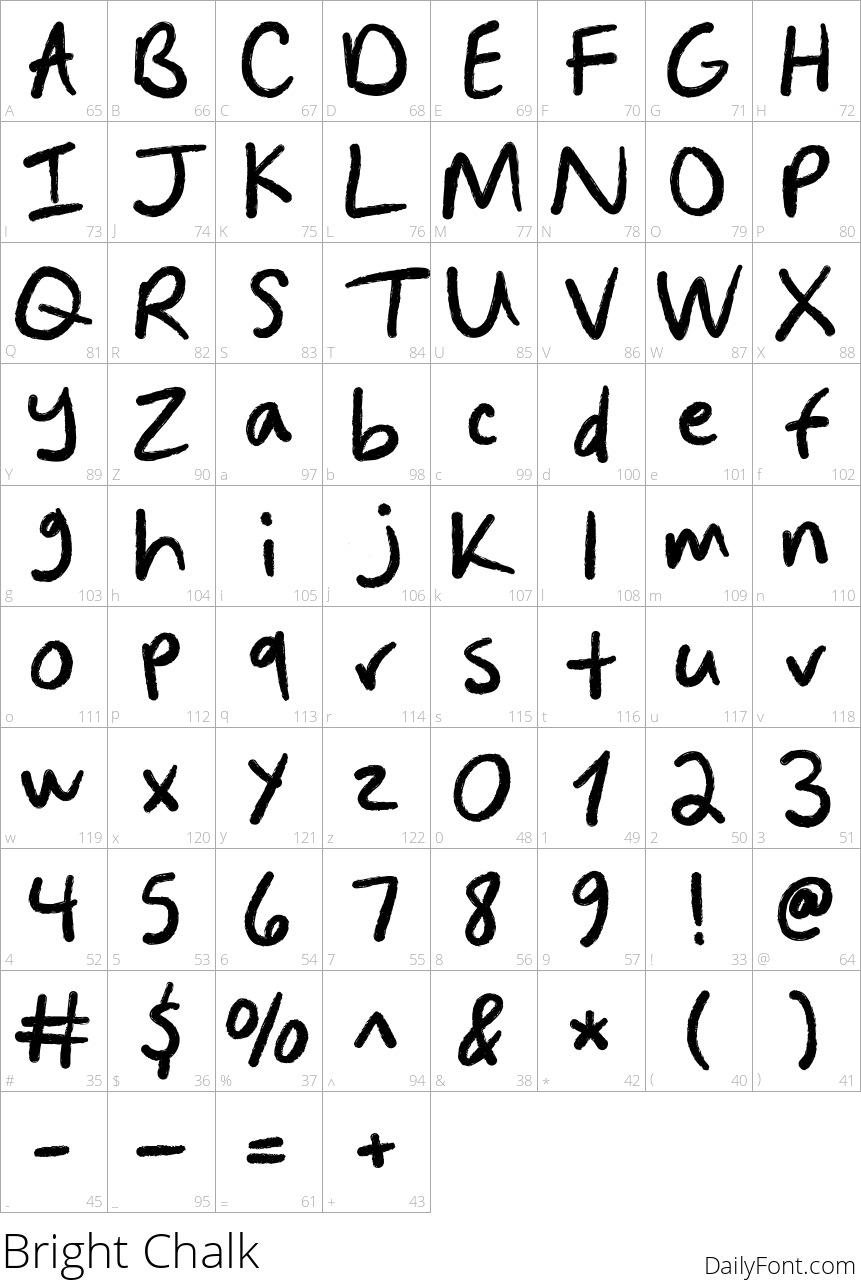
Bright Chalk
Are you looking for a font that embodies the carefree spirit of childhood creativity? Do you want a typeface that adds a touch of playfulness and personality to your designs? Look no further than this unique, hand-drawn sans-serif font!
This charming font is reminiscent of traditional chalk lettering, with its rough-hewn lines and irregular edges giving it a delightfully imperfect feel. Each letterform has been carefully crafted to evoke the sense of artistic expression and spontaneity that comes from putting pen to paper.
Whether you're designing a eye-catching poster, a bold logo, or a social media graphic that demands attention, this font is sure to make a statement. Its whimsical aesthetic and versatile design make it perfect for adding a touch of humor, imagination, and creativity to your work.
If you're looking for a font that's equal parts charming, quirky, and memorable, then this is the one for you! With its bold lines, playful curves, and imperfect edges, this font is sure to add a dash of personality to any design.